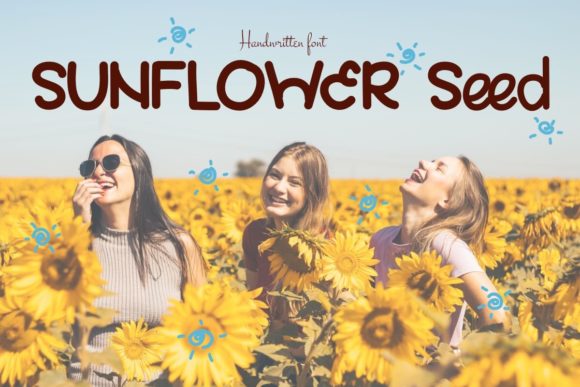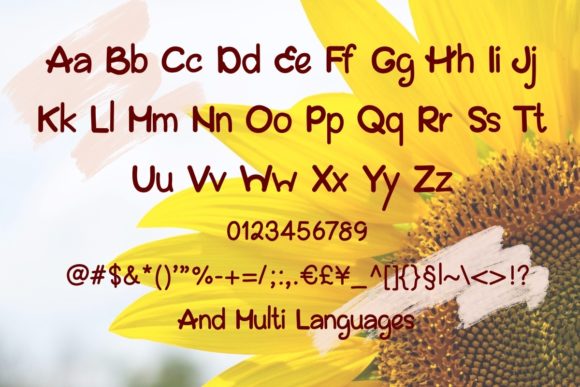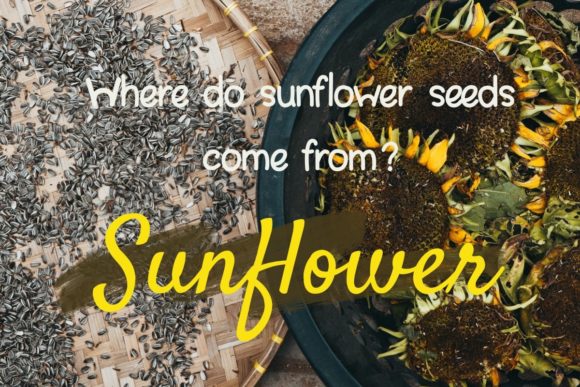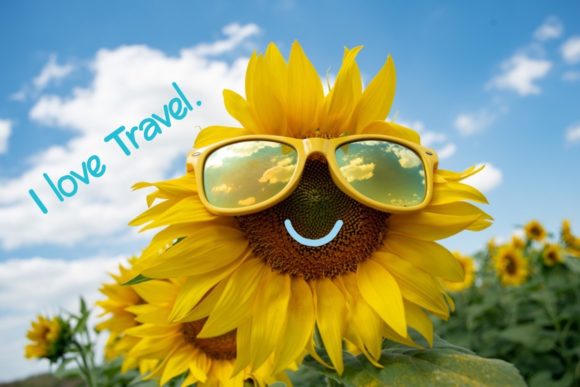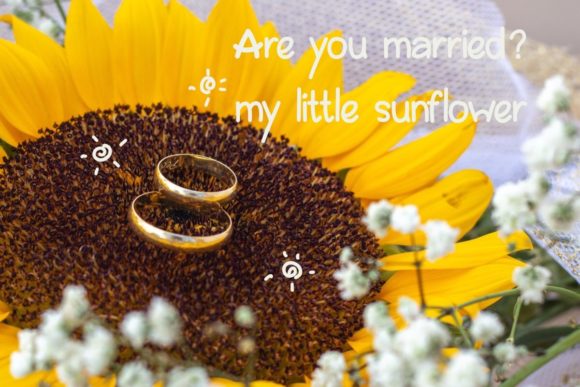
About Sunflower Seeds Font
Sunflower Seeds is a cute and clean handwritten font. No matter the topic, this font will be an incredible asset to your fonts’ library, as it has the potential to elevate any creation.